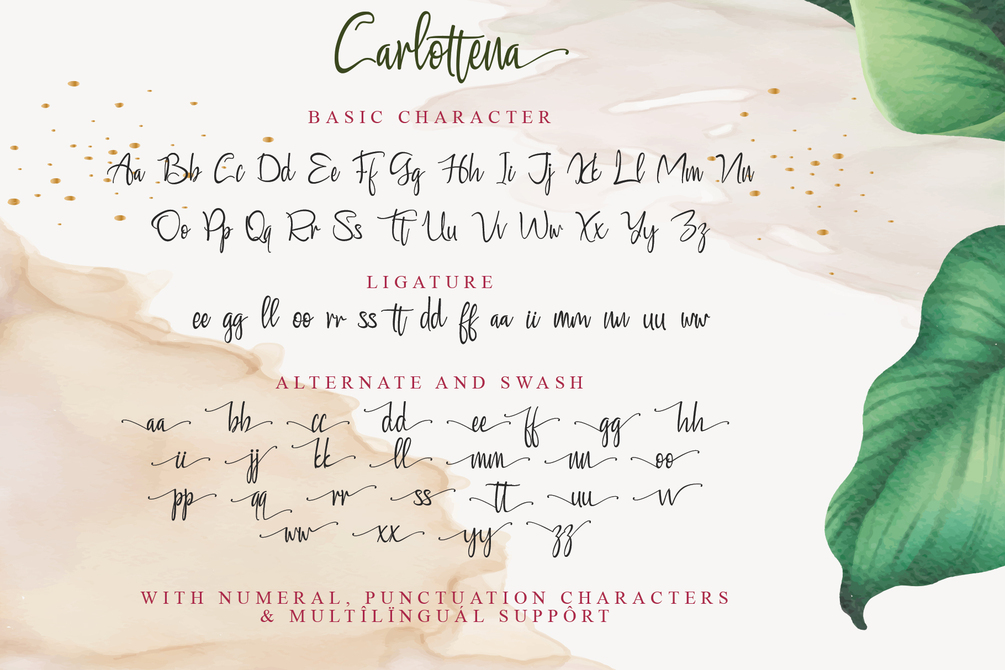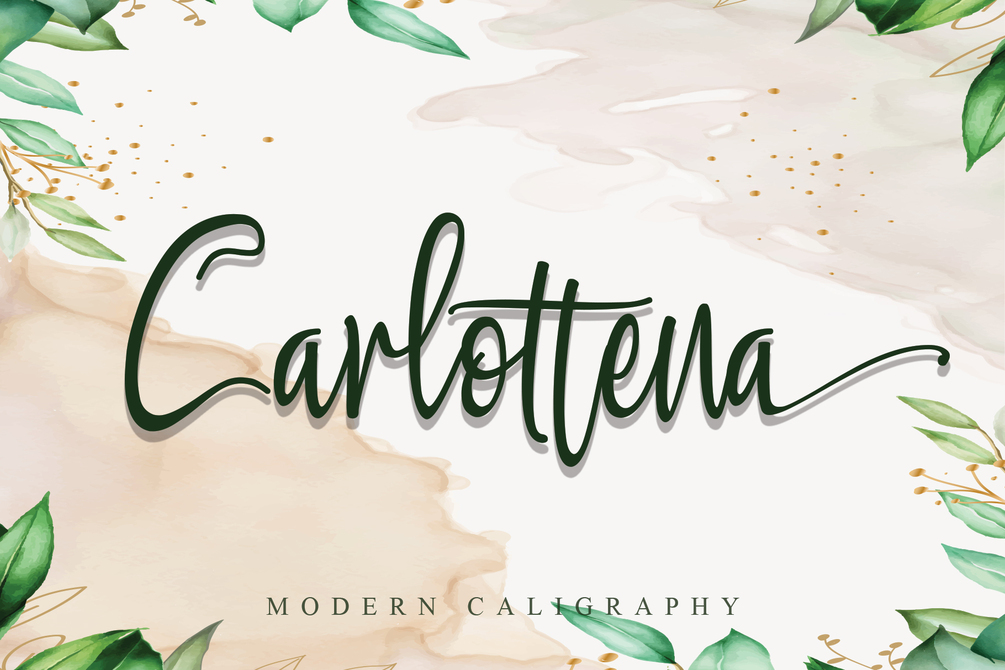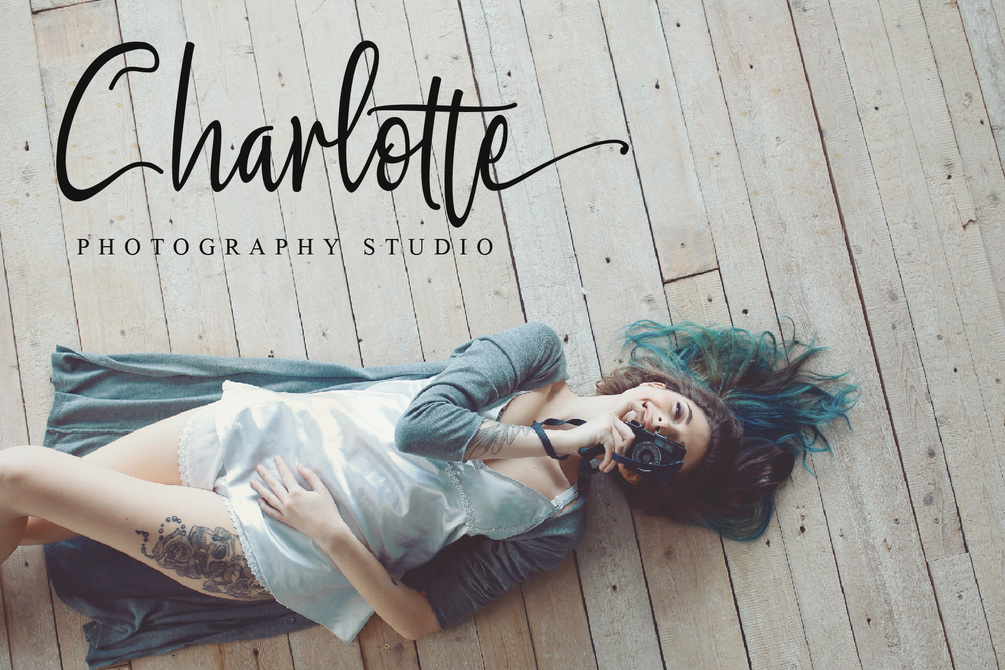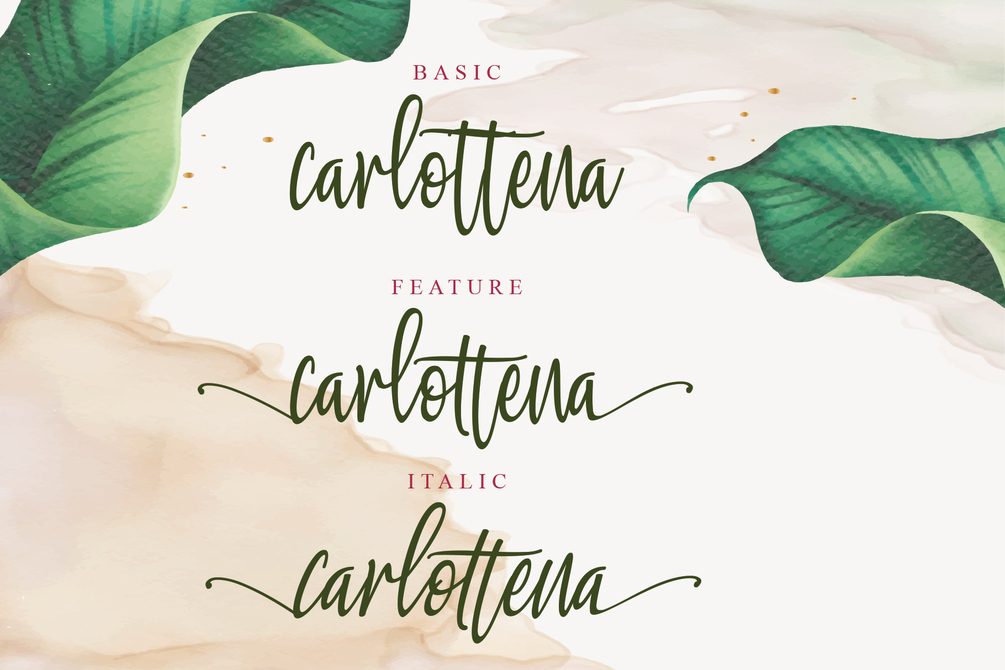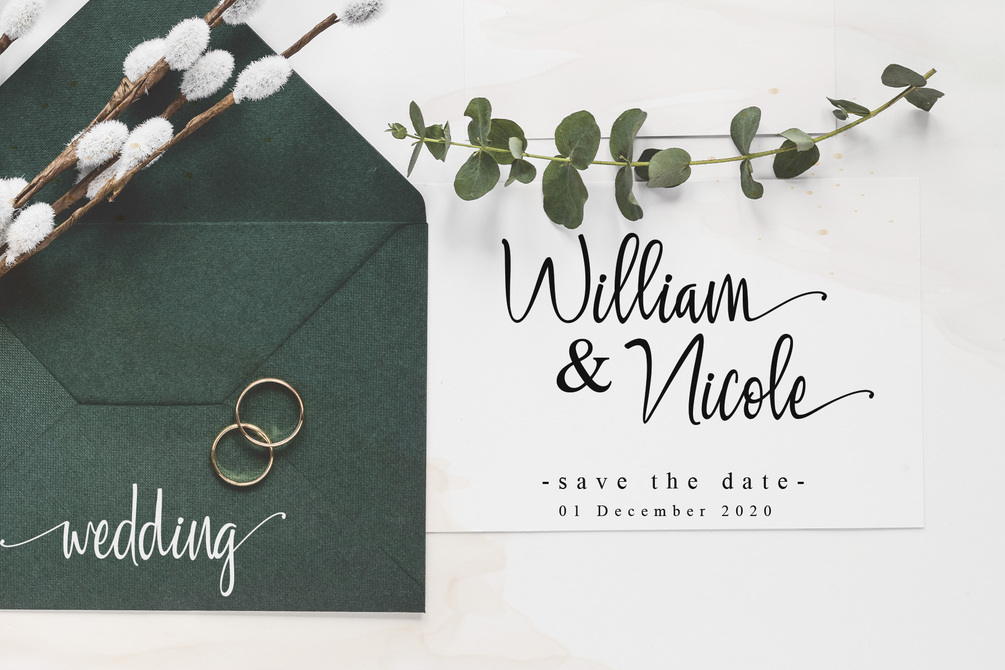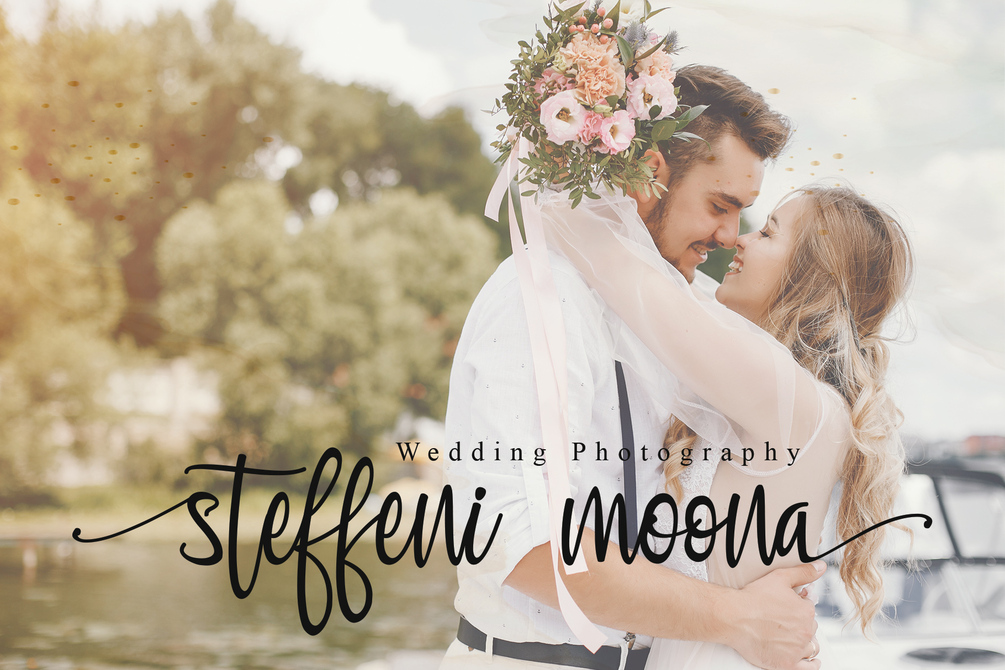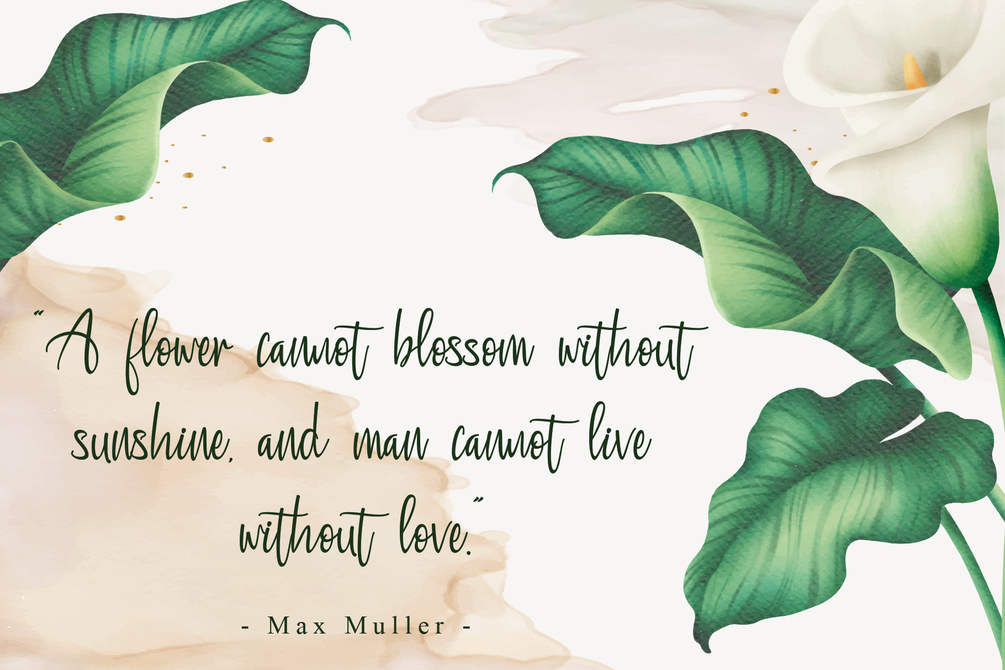
Carlottena
Carlottena is a beautiful and elegant script font. Its modern and classy look is perfect for logos, branding, invitations, social media posts and every other design that needs a handwritten touch and can be used for almost every design.